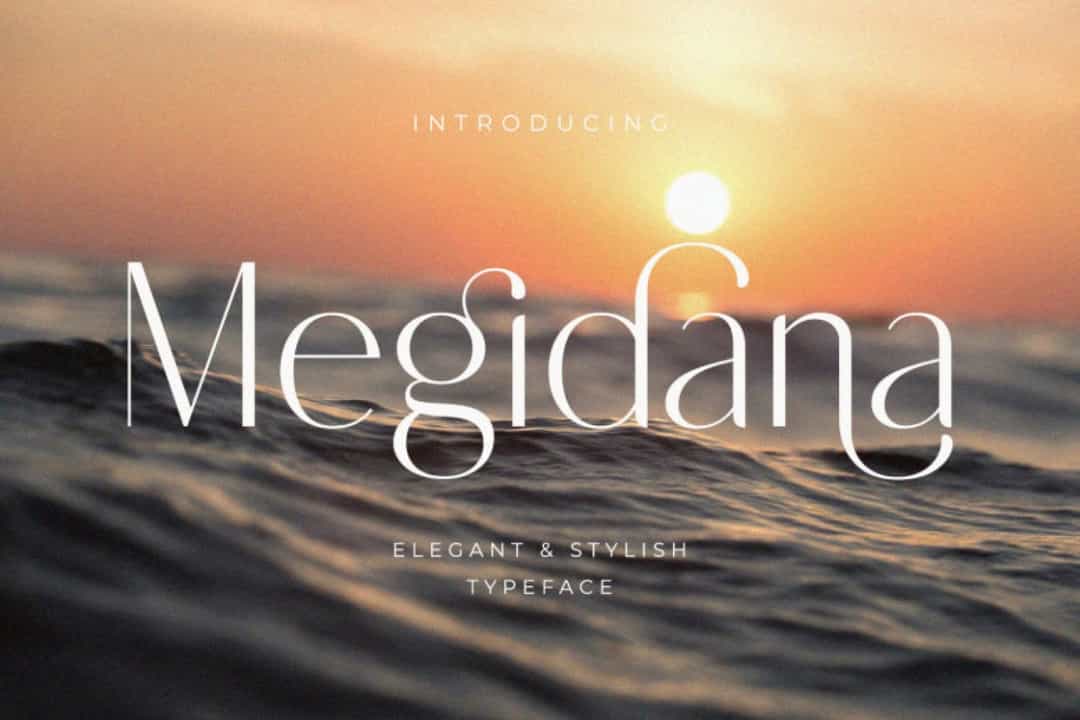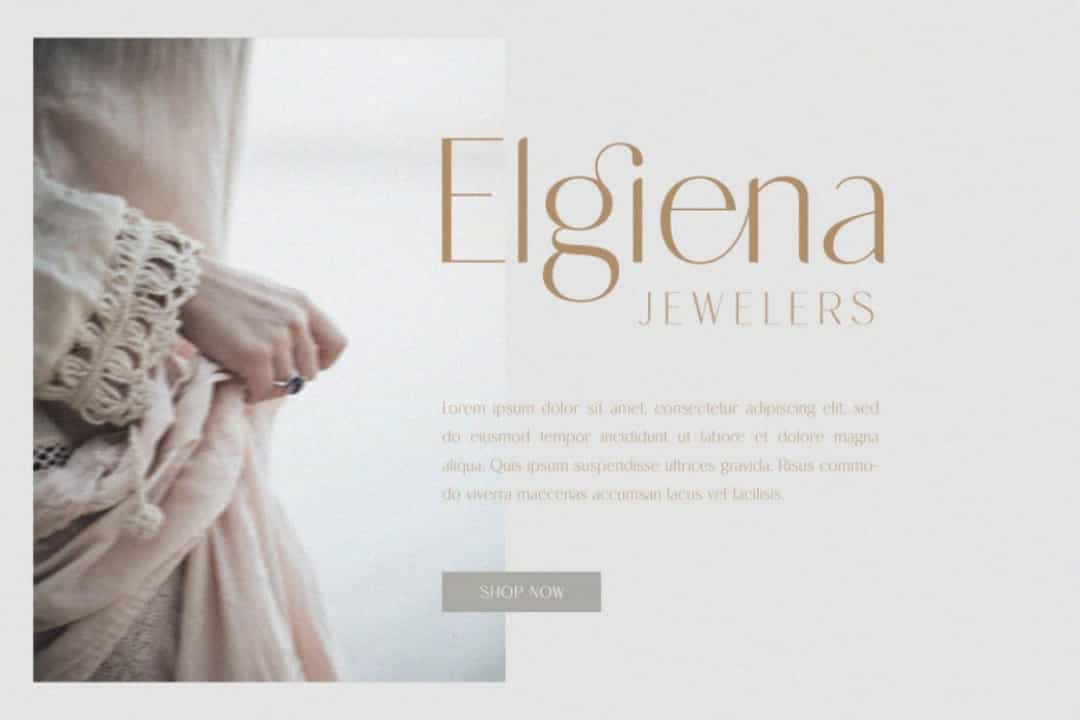
Discover Megidana Font, part of the Sans Serif collection—a versatile and unique font perfect for adding a personal touch to your projects. Download it for free and enjoy crafting designs with style, from invitations to social media posts. This font is available exclusively for personal use, giving you the freedom to create without limits. Unlock your creativity with Megidana Font today!
Megidana is an elegant sans serif font with a stunning and well-balanced character that works beautifully in designs of any kind. Plus, being PUA encoded means accessing all characters and symbols easily!